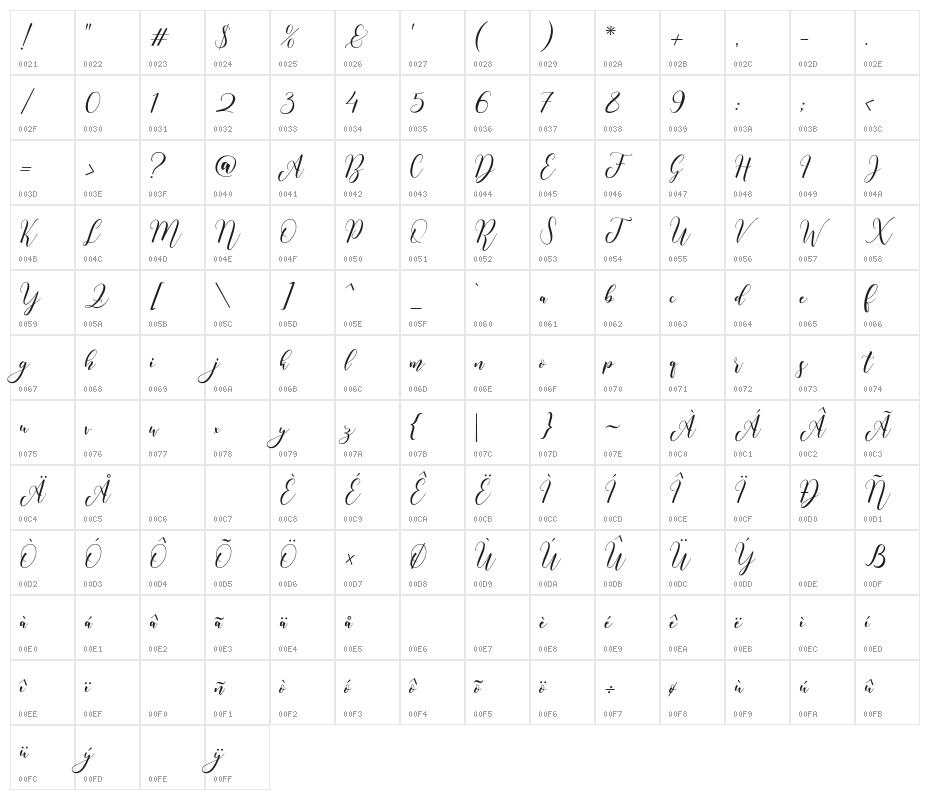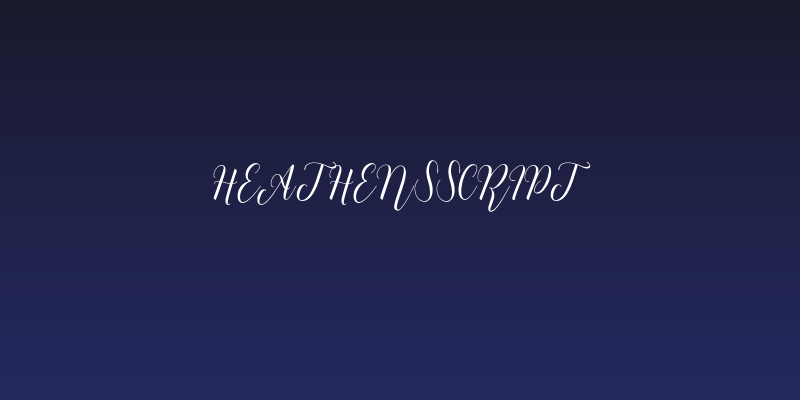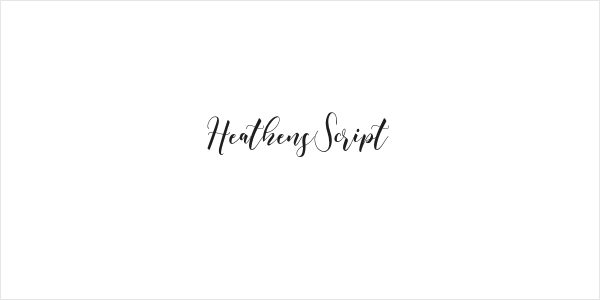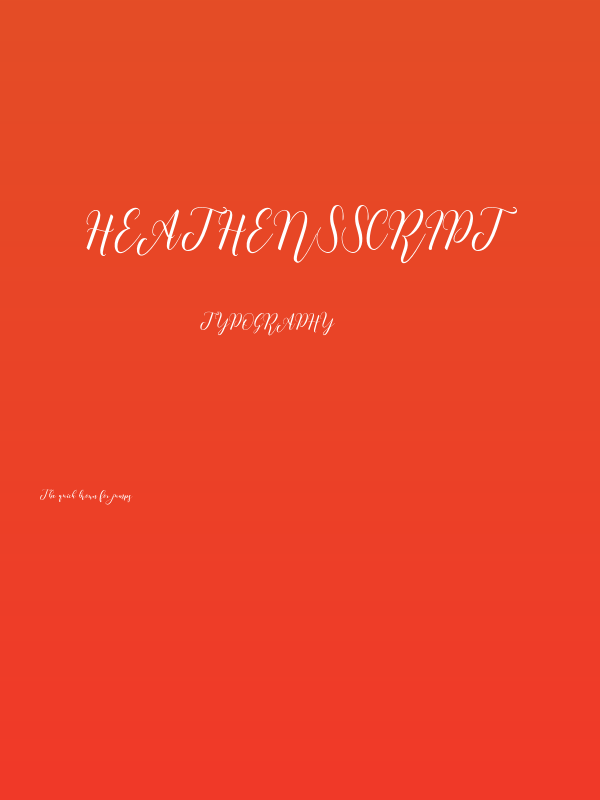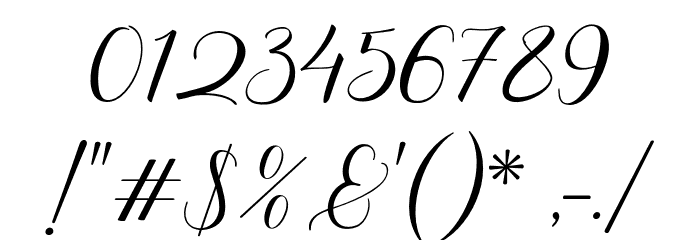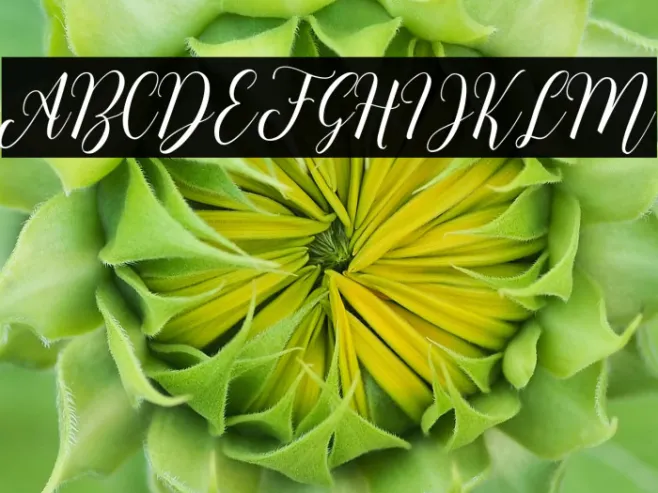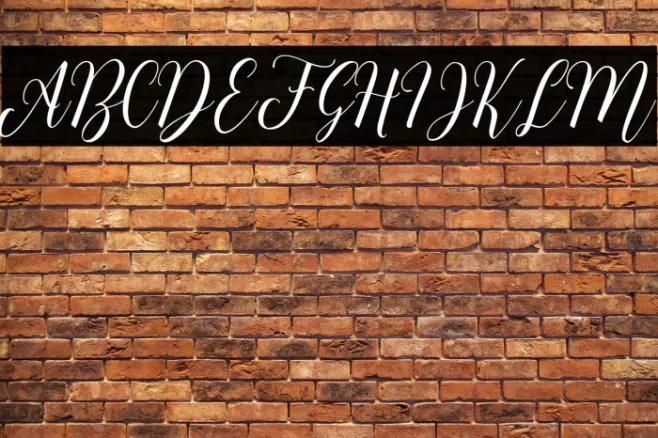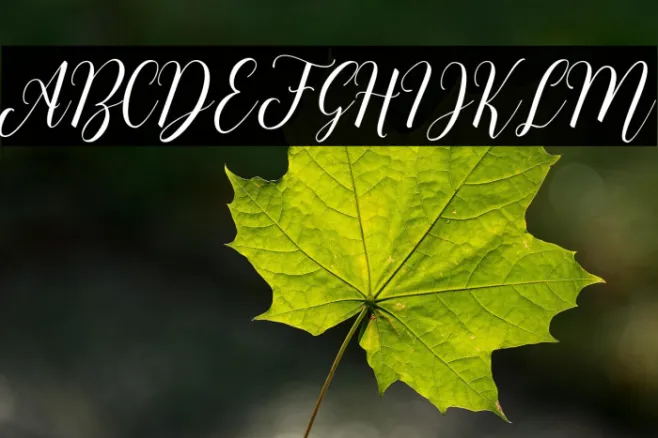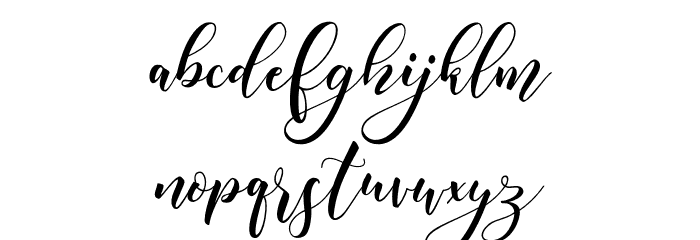
HeathensScript Font
HeathensScript Description
This script font exudes elegance and fluidity, characterized by its flowing, cursive style. The uppercase letters are tall and graceful, with sweeping ascenders and descenders that add a touch of sophistication. The lowercase letters maintain a consistent rhythm, enhancing readability while preserving the artistic flair. The numerals are stylishly integrated, matching the overall aesthetic with their curved lines and balanced proportions. Special characters are thoughtfully designed, ensuring they complement the script's ornate nature. This font is perfect for projects that require a personal, artistic touch, such as invitations, branding, and decorative designs.